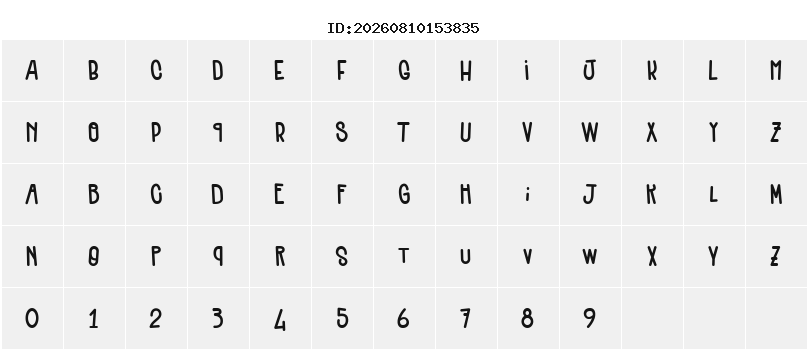
Quenelles Preview
• Font Name: Quenelles
• Designer: qkila
• Manufacturer: Qkila
About Quenelles.ttf
Quenelles.ttf is a modern, elegant sans-serif font designed for ultimate readability and visual harmony. Perfect for branding, headlines, web design, and print materials.